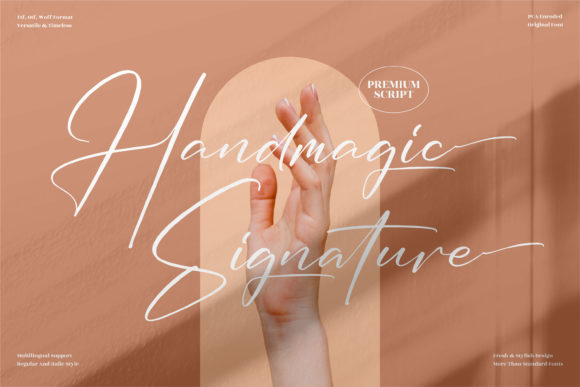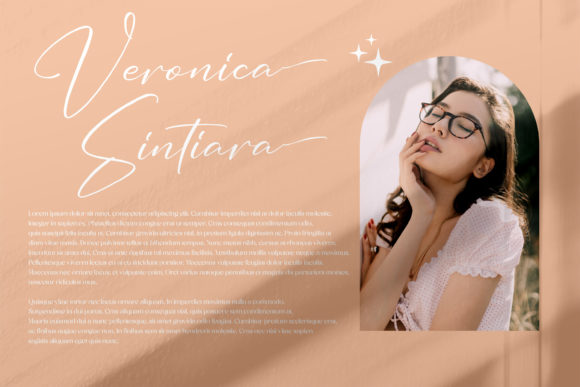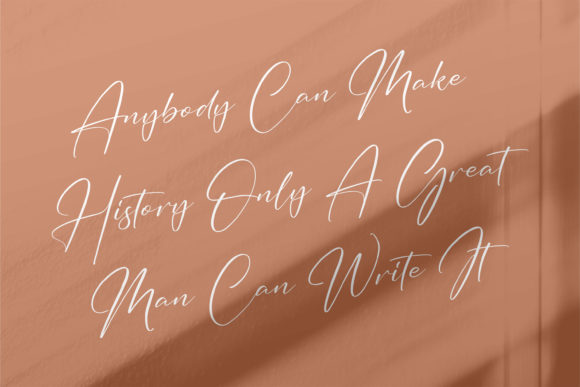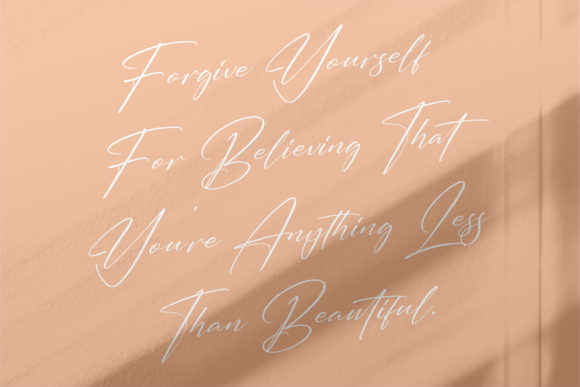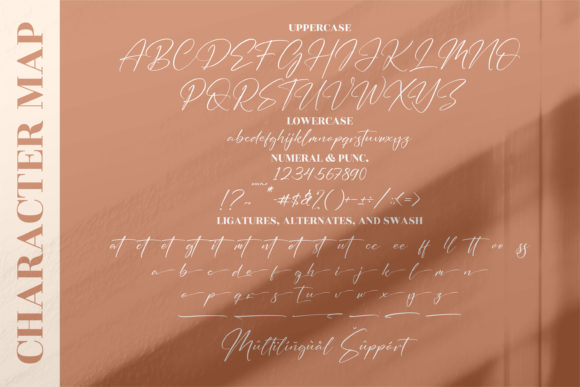
Handmagic Signature Font
About Handmagic Signature Font
Handmagic Signature is a delicate script font carefully created with a touch of elegance. This font is PUA encoded which means you can access all of the glyphs and swashes with ease!